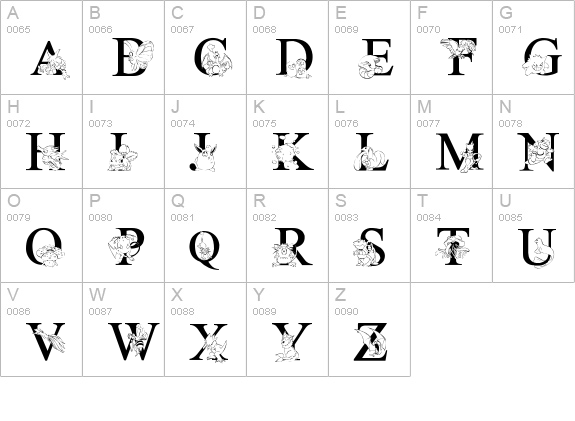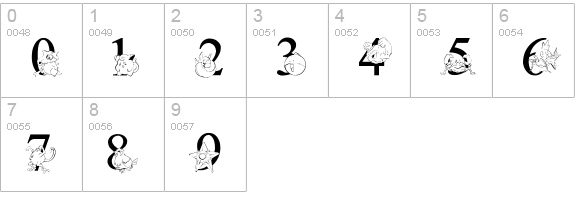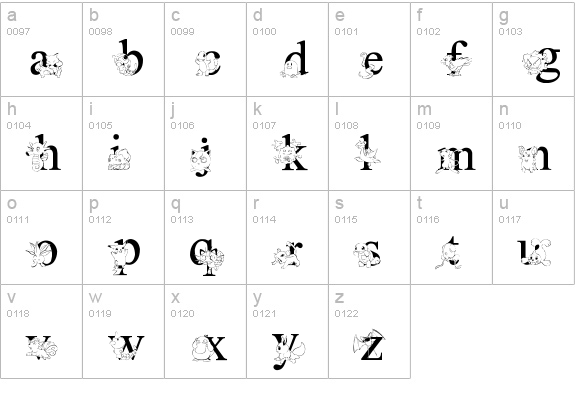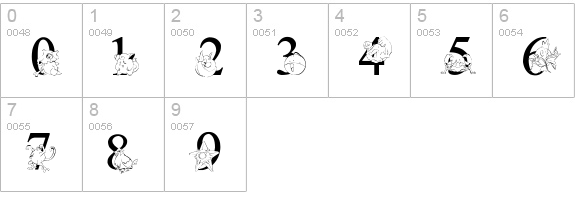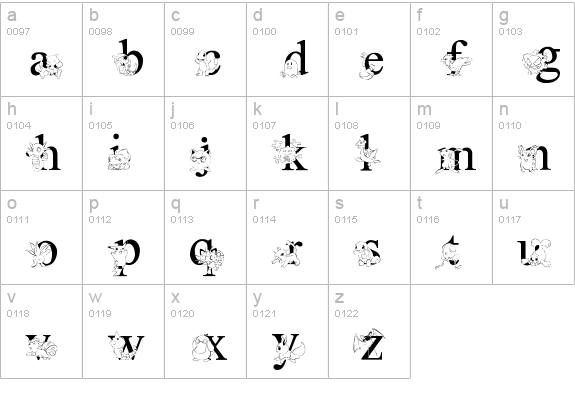
The LMS Pokémon Master Solid font is a playful and whimsical typeface that captures the adventurous spirit of the beloved Pokémon franchise. With its bold and chunky lettering, this font is perfect for adding a touch of fun and nostalgia to your designs. What makes this font even better is that it is available for free download at FontsMarket.com! Yes, you read that right - you can get your hands on this charming and versatile font without spending a dime. So why wait? Add a touch of Pokémon magic to your projects today with the LMS Pokémon Master Solid font.